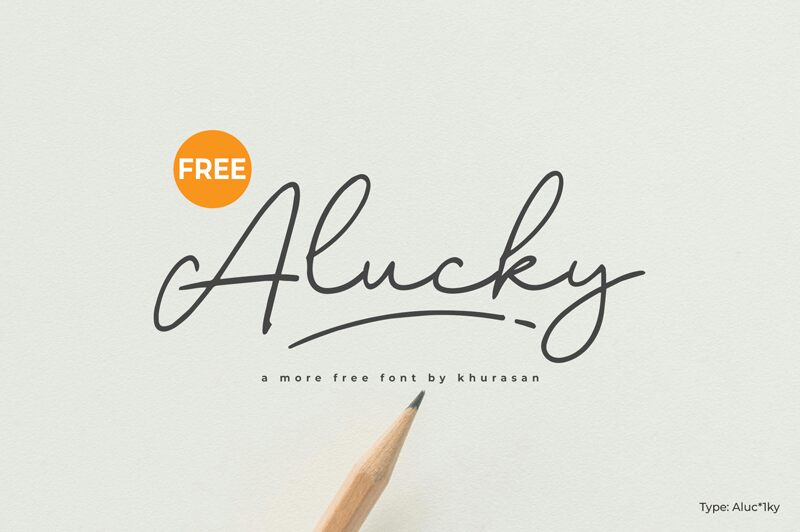
Alucky font by Khurasan is a modern handwritten creation with a light weight. Elegant, fluid, and expressive, its visually organic design presents a warm feel that highlights its affectionate use of curves and lines. The letters are well-spaced for an exceptional reading experience and effortlessly fit within the font design.
Use this free handwritten font for logo designs, app development, branding projects or website designs among other uses. Book/magazine covers, company taglines or mottoes, eye-catching headings on blogs/magazines are also ideas to try out with the pleasant Alucky typeface.
Alucky